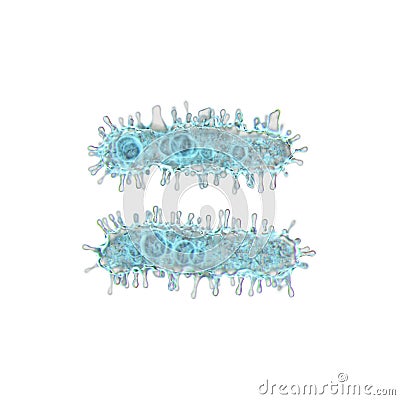
Alphabet made of virus isolated on white background. Symbol equals. 3d rendering. Covid font, virus font, 3d #190007134
Alphabet made of virus isolated on white background. Symbol equals. 3d rendering. Covid font, virus font, 3d alphabet